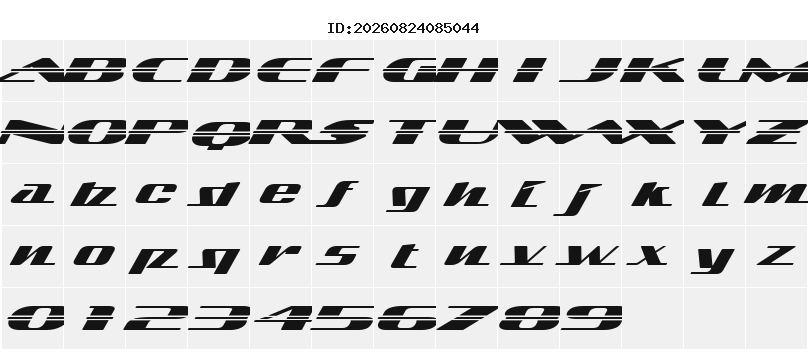
Sandoval Speed Preview
• Font Name: Sandoval Speed
• Designer: Ray Larabie
About Sandoval Speed.ttf
Sandoval Speed.ttf is a modern, elegant sans-serif font designed for ultimate readability and visual harmony. Perfect for branding, headlines, web design, and print materials.